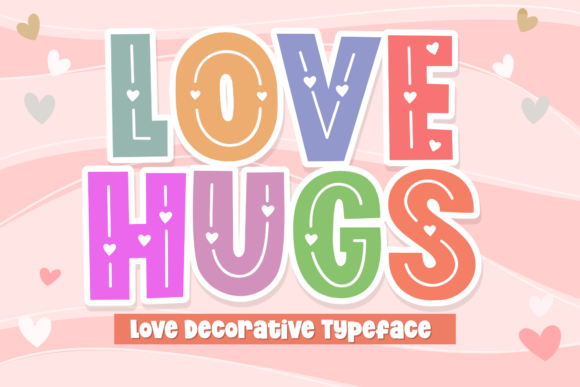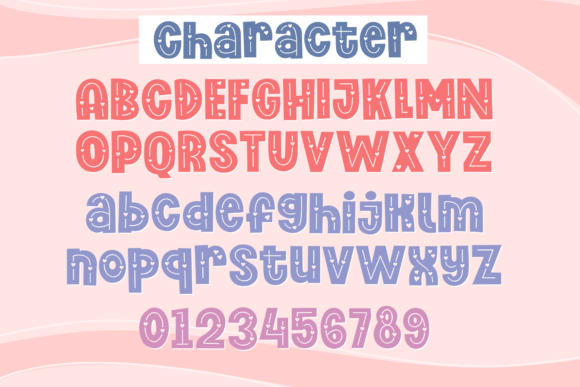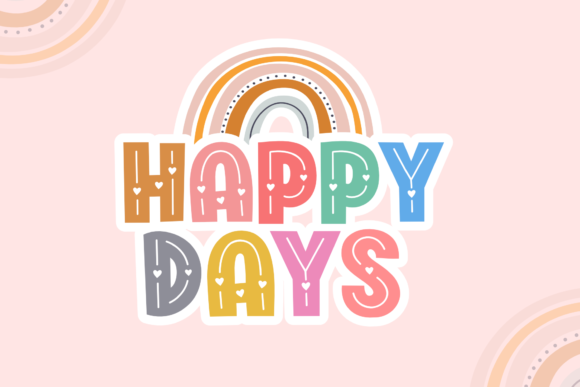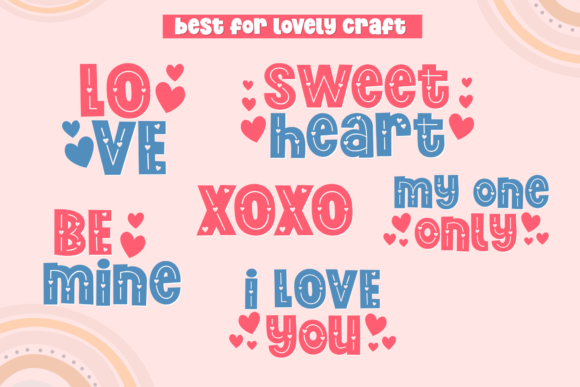
Love Hugs Font: A Cute & Playful Display Font for Valentine’s Day Crafts
About the Love Hugs Font
Elevate your designs with Love Hugs Font, a font that combines sophistication with readability. Love Hugs is a cute, bold and thick lettered display font with heart elements. Use this font when making your Valentine’s Day crafts or Mother’s Day designs.
Love Hugs is ideally suited for headlines, short taglines, and eye-catching branding elements where its playful boldness makes a strong visual statement. It works exceptionally well on greeting cards, invitations, and social media graphics, particularly those targeting a younger or family-oriented demographic. Avoid using it for body text or lengthy paragraphs; its thick weight and decorative elements compromise readability at smaller sizes.
The font’s core personality is friendly and approachable, with a touch of whimsy. It projects warmth and affection, making it perfect for brands associated with love, family, or childhood.
Consider pairing Love Hugs with a clean sans-serif font like Open Sans for body copy to create a balanced and harmonious design. Alternatively, a delicate script font could add a touch of elegance, while a geometric sans-serif would offer a modern contrast.
Love Hugs Font Usage Examples
Love Hugs Font Example